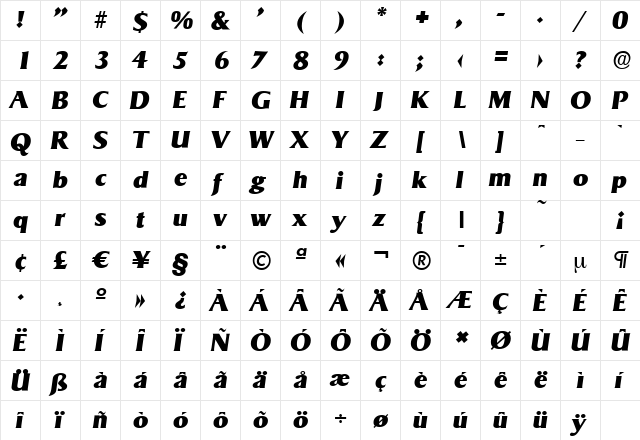
SigvarSerial-Heavy Italic Font Preview
SigvarSerial-Heavy Italic
SigvarSerial-Heavy Italic Font Details
Design Context for SigvarSerial-Heavy Typeface
SigvarSerial-Heavy offers clean, dependable letterforms without strong stylistic allegiance, making it a practical choice for designers who need flexibility. Its italic angle brings a sense of urgency and motion to the letterforms.
Pro Tip: Use SigvarSerial-Heavy for emphasis, pull quotes, and subheadings where its slanted energy can add rhythm to the layout.